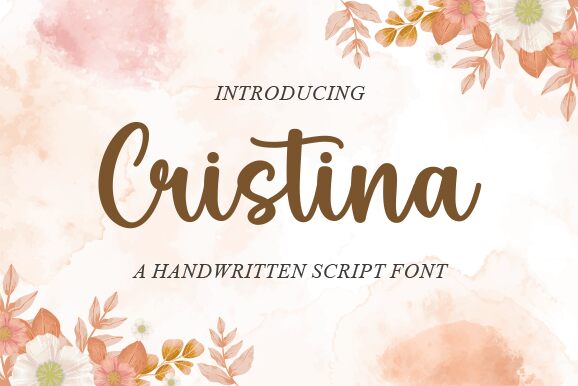
Cristina is an exquisite semi-bold calligraphy font by Nirmala Creative. Its elegant and sophisticated curves make it perfect for wedding invitations, greeting cards, and branding projects that require a touch of elegance. The font's unique character sets it apart from other fonts in its category, making it perfect for designers looking to add a new dimension to their projects. Cristina is versatile enough to be used in both print and digital design work, including logos, packaging design, magazine layouts, and more. With its stunning appearance and excellent readability, Cristina is sure to elevate any project it's used in!